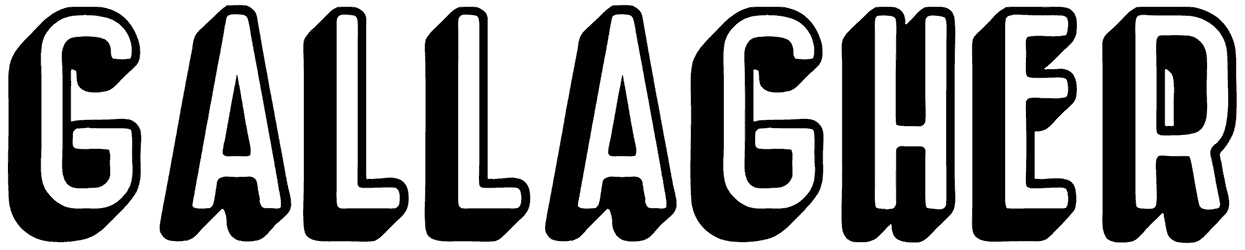
Gallagher Font
The Gallagher is a 3D font with a vast shadow that has made this font entertaining for the viewer. This shadow font‘s capital letters have a tall form while it does not support lowercase ones. The Gallagher can be helpful in cases such as T-shirts, posters, and book covers.
The edges of this font are neither sharp nor smooth, and it has a friendly feeling. The shadow helps the font to be attractive, and it remains in your mind for a while.